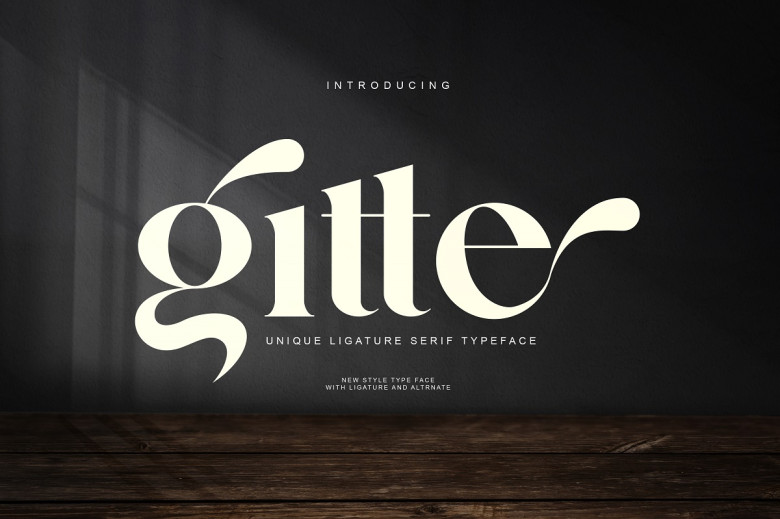
Gitte Font
Gitte is an elegant and classy serif typeface. This font is modern and nostalgic and is perfect for logos, magazines, and social media. It’s matched and ready to be used together for your next design! For those of you who need an elegant, stylish, classy, ​​chic, and modern touch to your design.
Gitte Serif Font